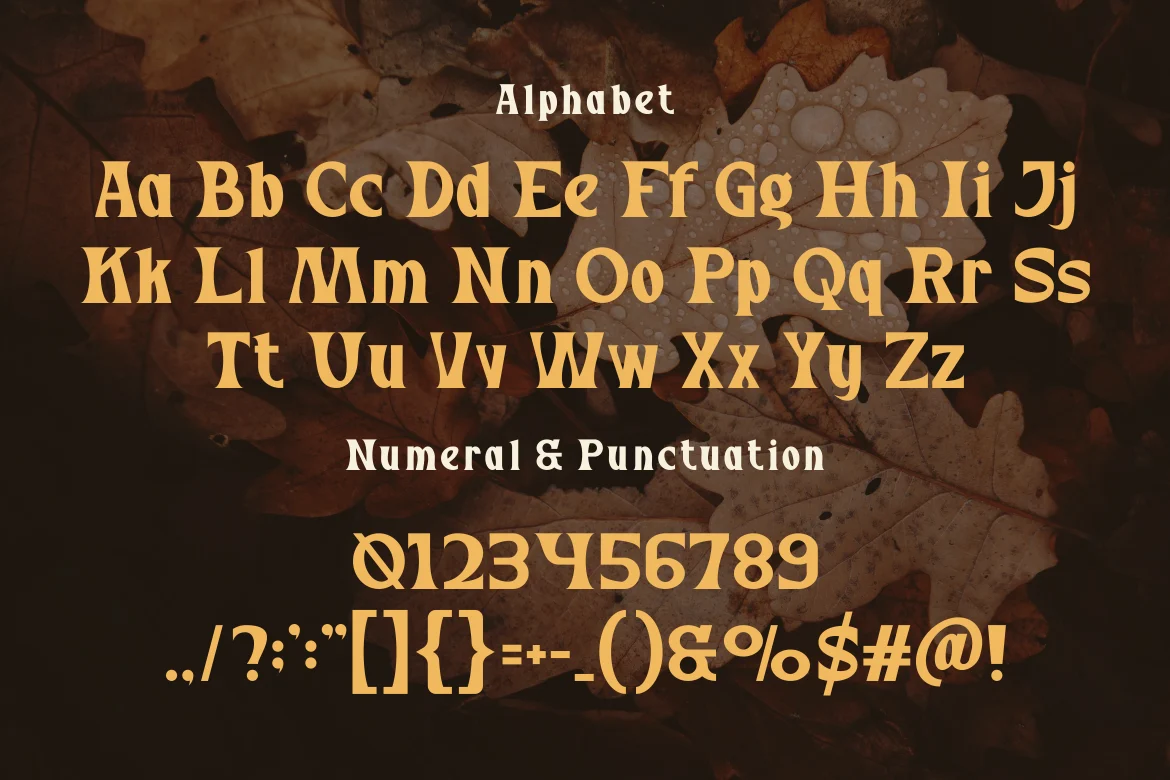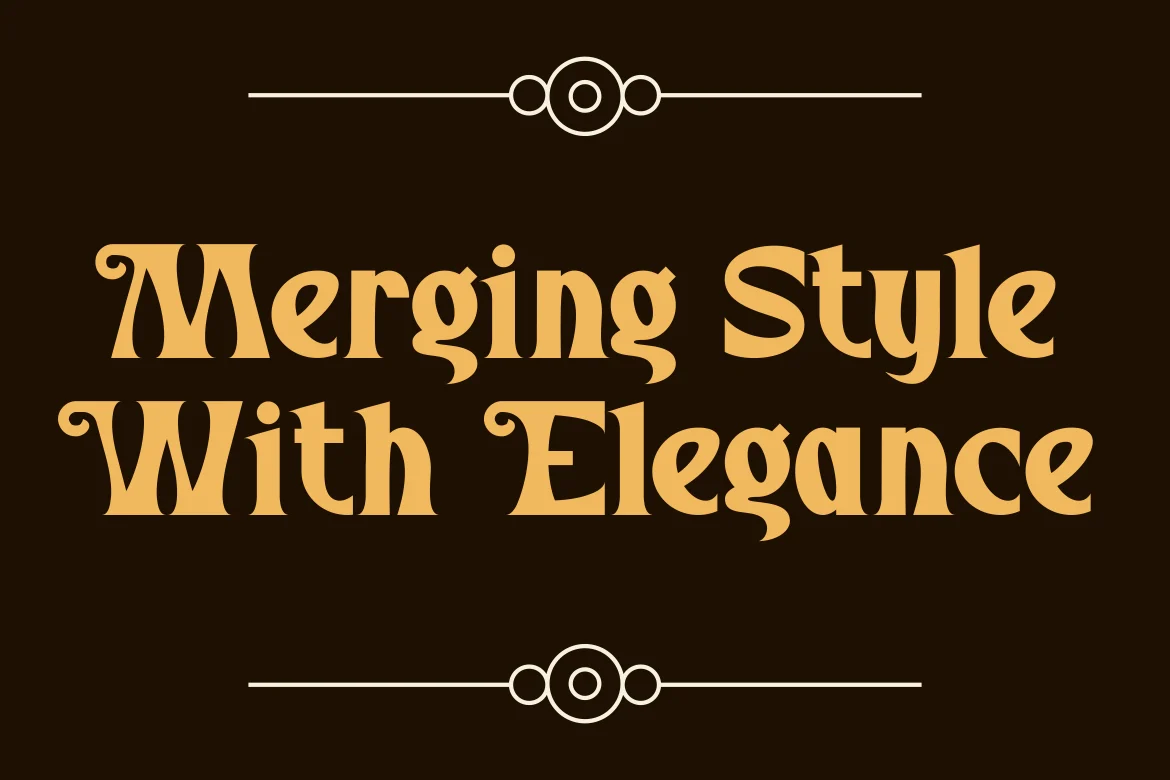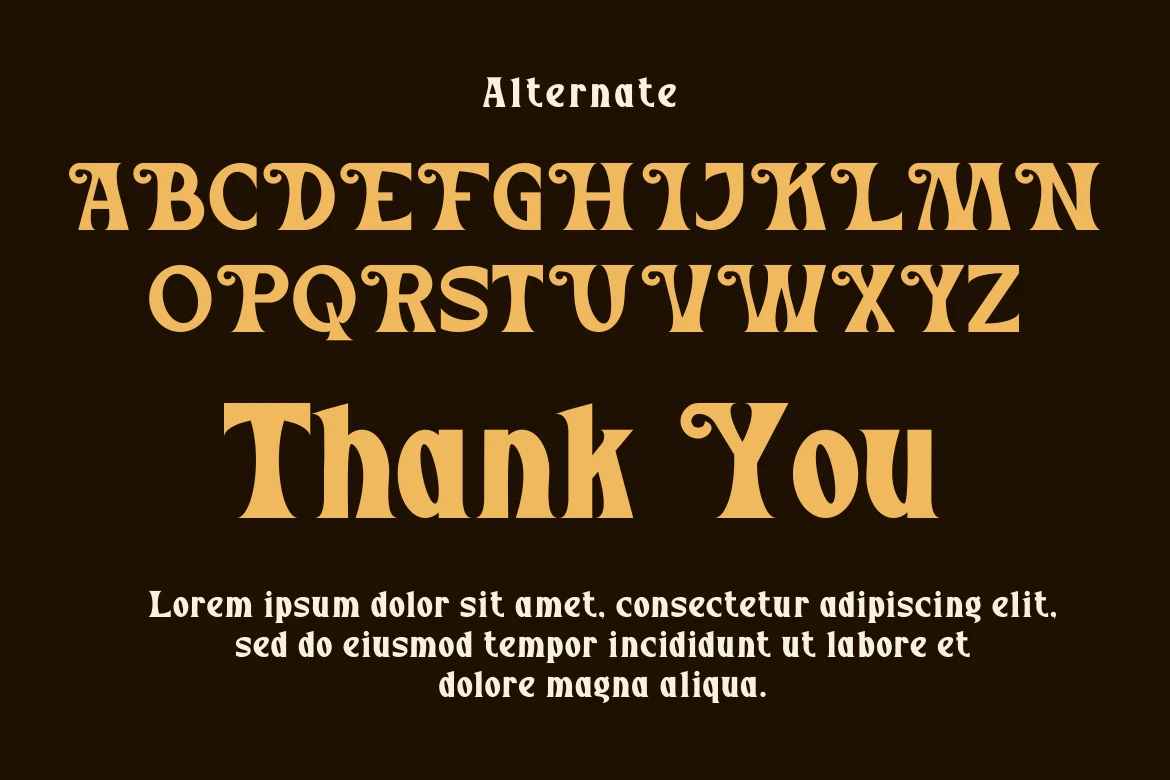
Maigan Font
Introducing our new product Maigan Font - Modern Font
Maigan Font - Modern Font is a bold and authentic display font. The font is suitable for any branding project like logo, t-shirt printing, esport, and many more. outstanding in a wide range of contexts.